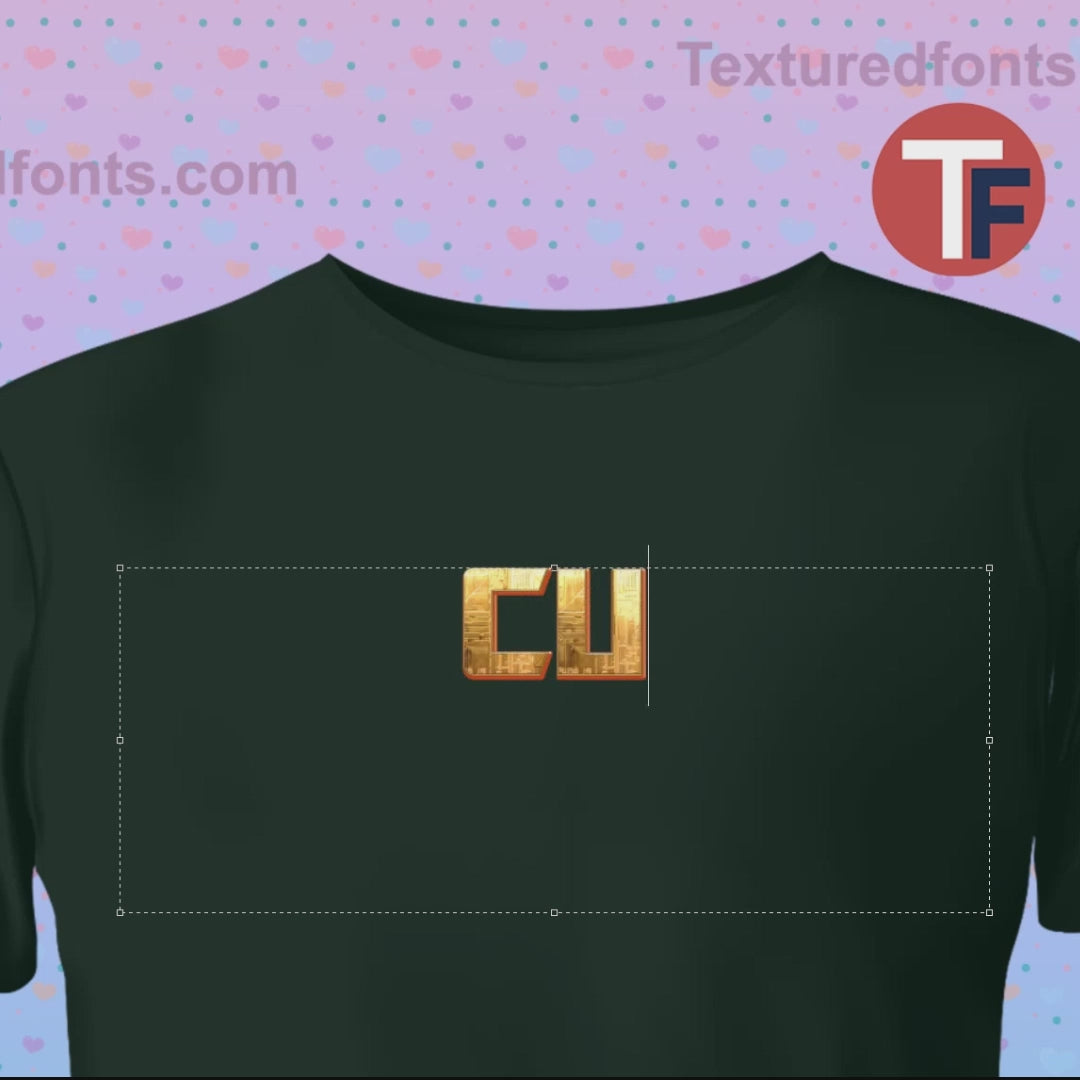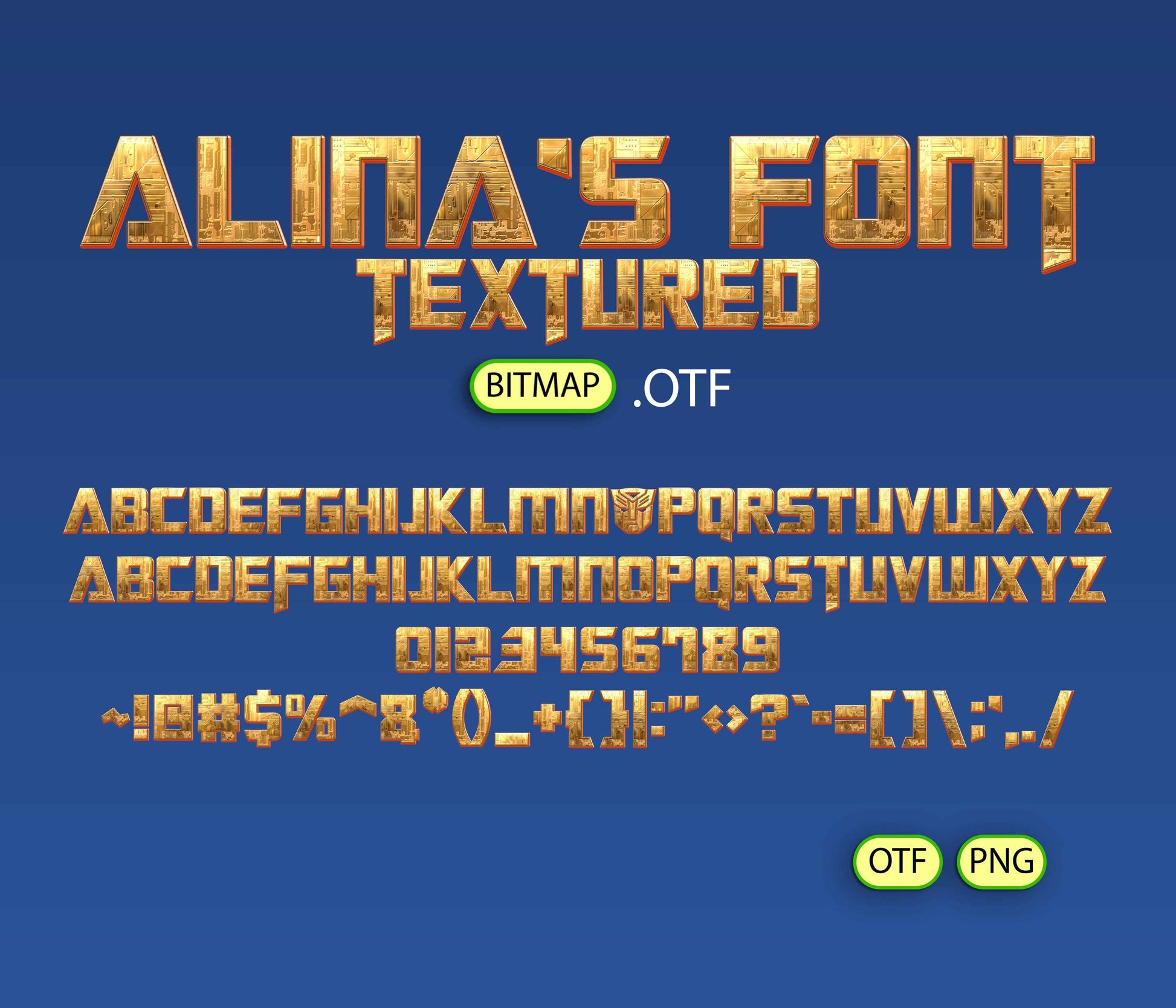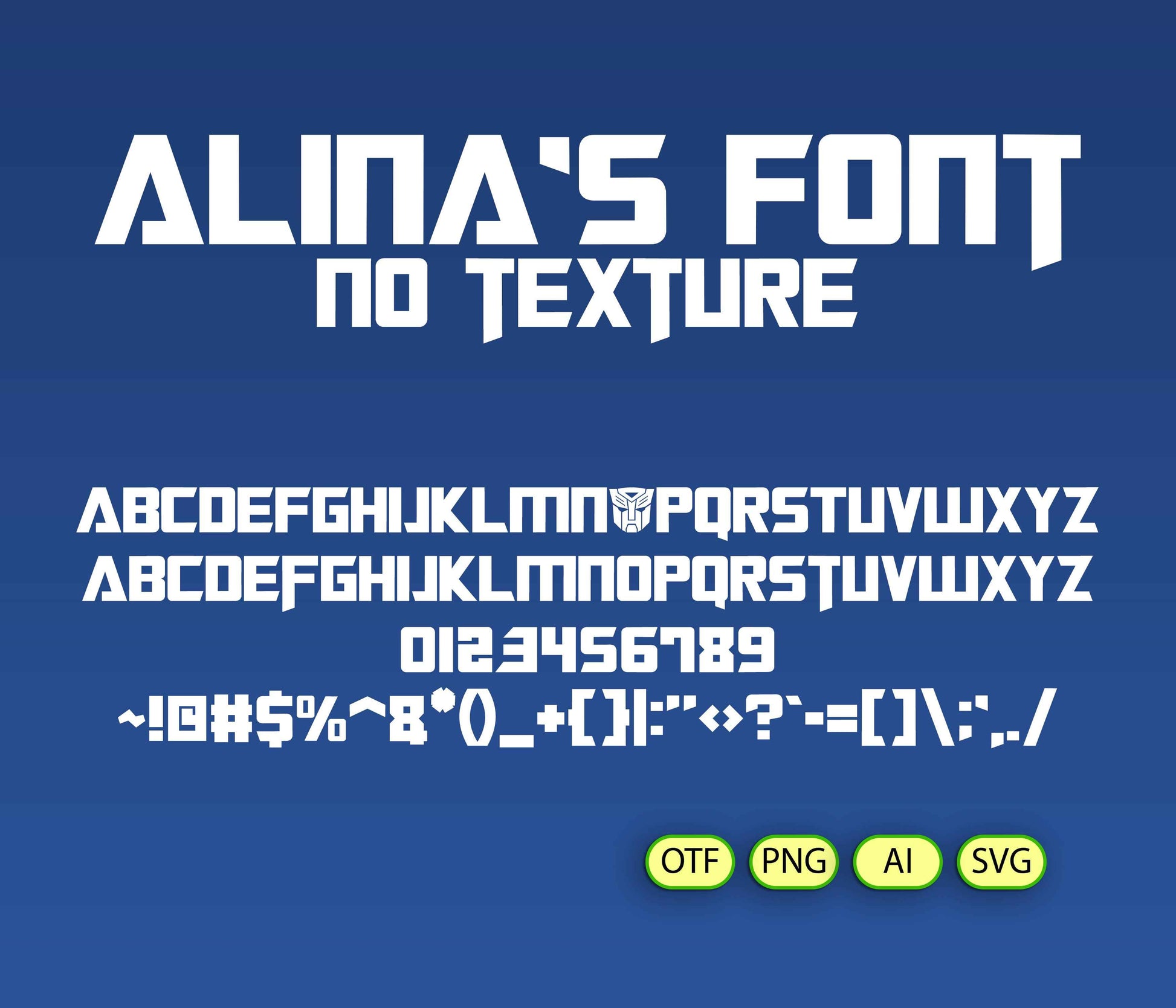
Mecha Force Font Textured
Unleash the Power of the Mecha Force Font
Dive into the thrilling universe of futuristic warriors with our Mecha Force font, designed to embody the mechanical and dynamic essence of epic sci-fi battles. Perfect for fans of high-energy, futuristic stories and creators looking to add a touch of bold, transformative style to their projects, this font encapsulates the powerful spirit of robotic champions. Whether you’re designing digital content, creating promotional materials for events, or crafting custom merchandise, our Mecha Force font ensures your creations resonate with the excitement and innovation of epic battles.
Inspired by the mechanical design and sharp, angular forms of futuristic robots, this font features sturdy, block-style characters with a techno-industrial feel. It captures the metallic texture and robotic essence of advanced technology, perfect for conveying strength and modernity. The comprehensive character set includes uppercase and lowercase letters, numbers, and special symbols, making it highly versatile for both headline and detailed textual designs.
- Film Promotions: Perfect for movie posters, trailers, and merchandising.
- Event Branding: Create striking visuals for theme parties or fan conventions.
- Digital Media: Enhance websites and social media platforms geared towards sci-fi fans.
- Gaming Content: Use in UI/UX design for video games or mobile apps.
- Merchandise: Design custom apparel, toys, and collectibles.
- Graphic Novels: Suitable for comic books or graphic novel covers.
- Educational Content: Engage students with visually appealing STEM materials.
- Personal Projects: Customize personal gadgets or car decals.
- Advertising Campaigns: Stand out in marketing materials for tech products.
Our Mecha Force-inspired font not only pays homage to the epic adventures of robotic warriors but also empowers you to bring the high-stakes, high-tech world of futuristic battles into your creative endeavors. Whether you are a graphic designer, a marketer, or a fan creating content at home, this font lets you communicate with the boldness and innovation that defines epic sci-fi stories. Get ready to transform your designs with every typed character, capturing the spirit of the battle for supremacy.